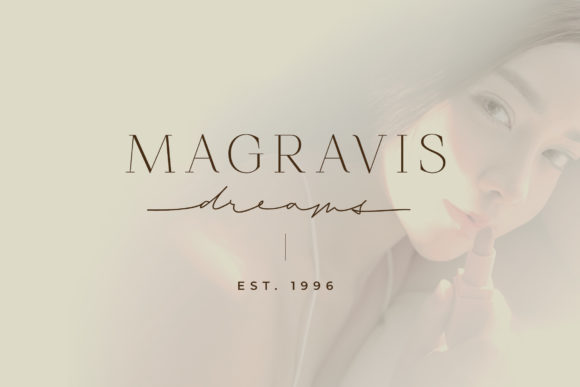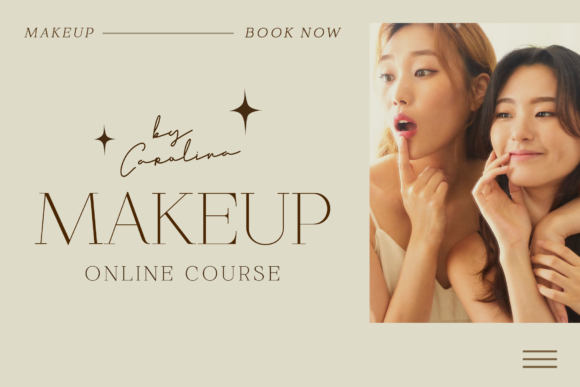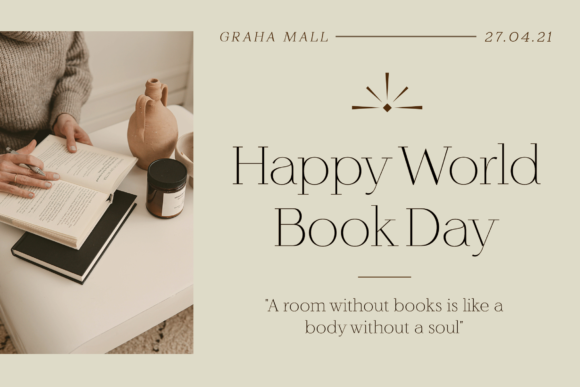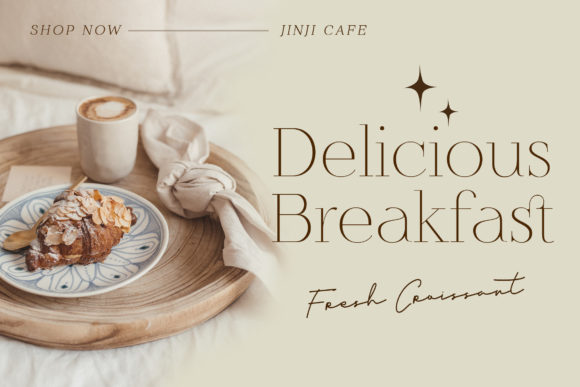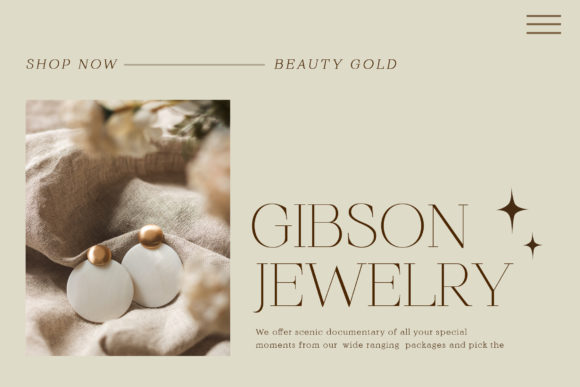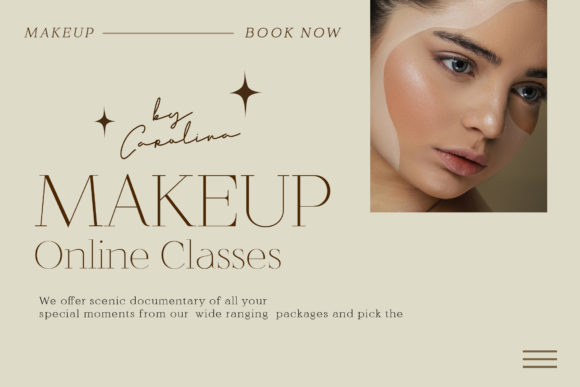
Introducing Allegory Font: Elevate Your Designs with Elegance and Sophistication
In the world of typography, fonts play a crucial role in conveying the tone and personality of a design. For designers and crafters seeking to add a touch of elegance and sophistication to their projects, Allegory Font is an excellent choice. This stunning serif font is characterized by its thin lettering and stylish aesthetic, making it perfect for creating visually appealing and distinctive designs.
What is Allegory Font?
Allegory Font is a beautifully crafted serif font that exudes delicacy and uniqueness. Its thin lettering gives it a light and airy feel, while its stylish design ensures that it stands out from more traditional fonts. Whether you’re working on a branding project, a website, or a craft project, Allegory Font is sure to add a touch of elegance and refinement.
Key Features of Allegory Font
- Thin Lettering: Allegory Font features thin lettering that gives it a delicate and refined appearance.
- Stylish Serif Design: The font’s serif design adds a touch of sophistication and elegance to any project.
- Unique and Distinct: Allegory Font is a one-of-a-kind font that will help your designs stand out from the crowd.
- Elegant Character: The font’s elegant character makes it perfect for adding a touch of refinement to your designs.
Uses of Allegory Font
Allegory Font is a versatile font that can be used in a variety of design projects, including:
- Branding: Use Allegory Font to create elegant and sophisticated brand identities.
- Web Design: Add a touch of refinement to your website with Allegory Font.
- Crafting: Use Allegory Font to create beautiful and unique craft projects, such as handmade cards and invitations.
- Graphic Design: Allegory Font is perfect for use in graphic design projects, such as brochures, flyers, and posters.
Benefits of Using Allegory Font
There are many benefits to using Allegory Font in your designs, including:
- Instant Elegance: Allegory Font adds an instant touch of elegance and sophistication to any design.
- Unique Designs: The font’s unique and distinct design ensures that your projects will stand out from the crowd.
- Versatility: Allegory Font can be used in a variety of design projects, from branding to crafting.
- Easy to Read: Despite its thin lettering, Allegory Font is easy to read and understand.
Tips for Using Allegory Font
To get the most out of Allegory Font, follow these tips:
- Use it Sparingly: Allegory Font is best used sparingly, as too much of it can be overwhelming.
- Pair it with Other Fonts: Experiment with pairing Allegory Font with other fonts to create visually appealing combinations.
- Adjust the Size: Adjust the size of Allegory Font to create visual interest and hierarchy in your designs.
- Experiment with Colors: Try out different colors with Allegory Font to add depth and interest to your designs.
In conclusion, Allegory Font is a stunning serif font that is sure to elevate your designs with its elegance and sophistication. Its thin lettering and stylish design make it perfect for adding a touch of refinement to any project. Whether you’re a designer, crafter, or DIY enthusiast, Allegory Font is a great choice for anyone looking to create visually appealing and distinctive designs.